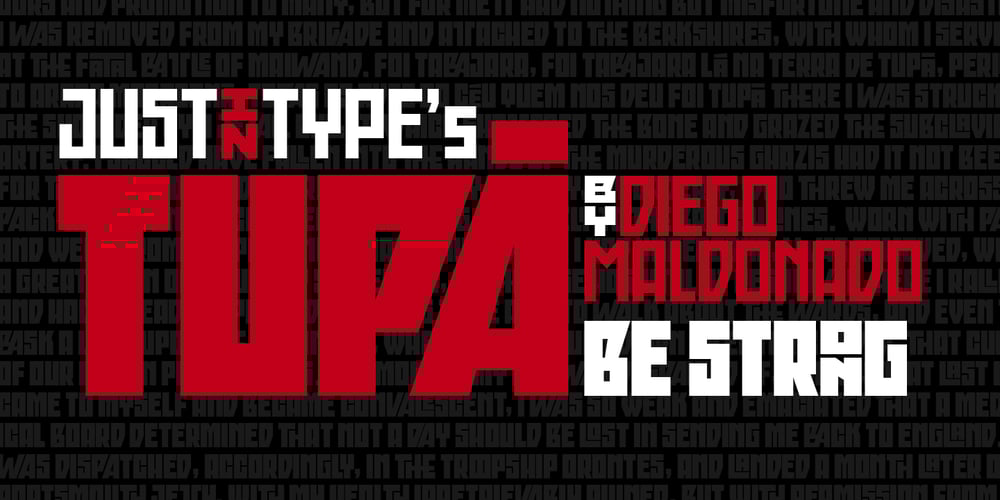
Tupã
Tupã font
Tupã Font Family was designed by Diego Maldonado and published by Just in Type. Tupã contains 4 styles and family package options. Tupã is the Brazilian indigenous word for thunder, that is worshiped like God in their mithology (in Tupi language). The typeface was developed to be strong and with great impact. The UPPERCASE was carefully designed with a lot of different features, and the lowercase is a mix of small caps and traditional forms, which brings a lot of personality and uniqueness to the design. Tupã familly is composed by two weights and four styles: Regular, Italic, Bold and Bold Italic. It’s a project recommended for titles, logos, posters and everything else you think it works. Take a look at the complete Specimen here.